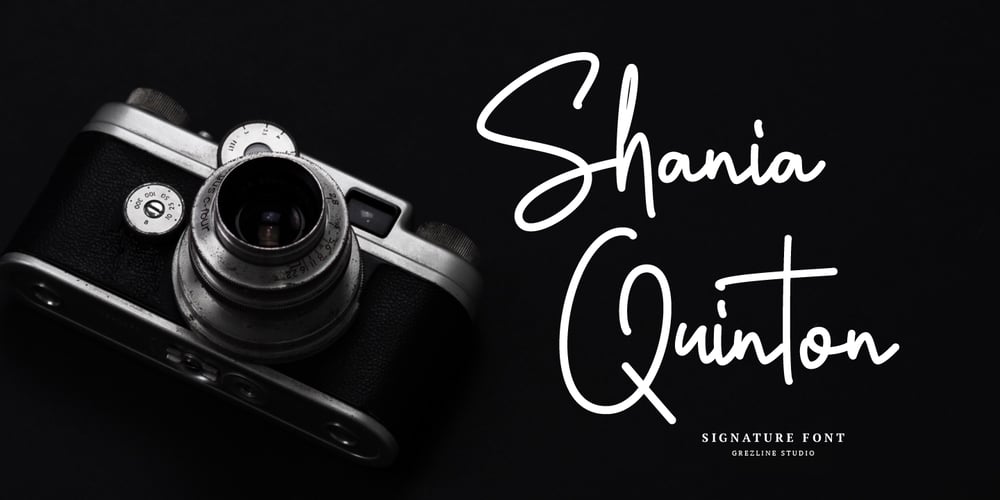
Shania Quinton
Shania Quinton font
Shania Quinton Font Family was designed by Akhmad Reza Fauzi and published by Grezline Studio. Shania Quinton contains 1 styles and family package options. Shania Quinton is a unique signature script font crafted very carefully. Shania Quinton is perfect use for a logo for branding, typography design, product packaging, invitation, quotes, t-shirt design, label poster, special events and anything that need handwriting taste.Feature :- Multilingual Language- Works on PC & Mac- Simple installations- Accessible in the Adobe Illustrator, Adobe Photoshop, Adobe InDesign, even works on Microsoft Word.